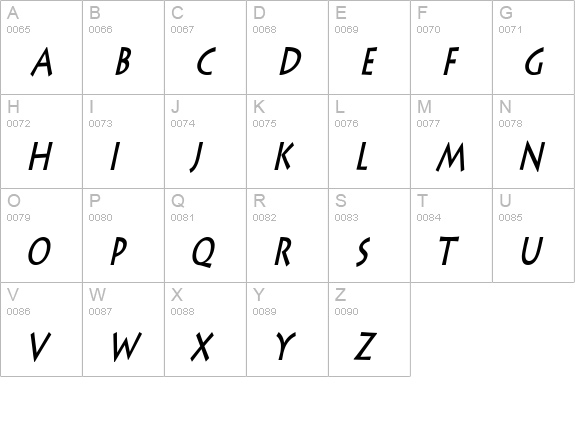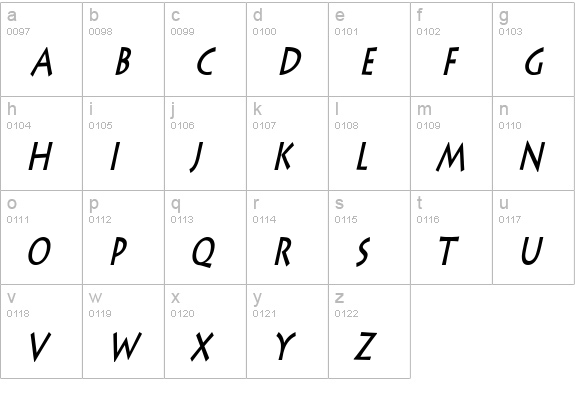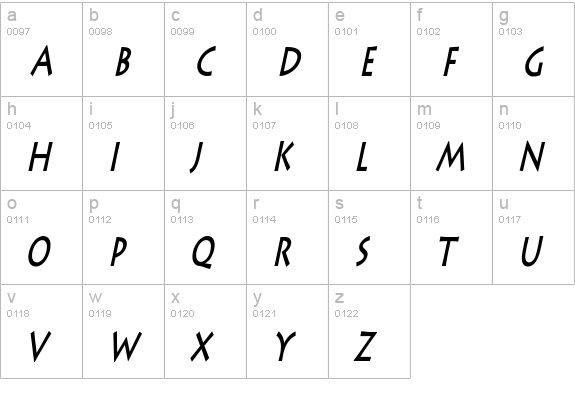
Liste Thin Bold Italic Font Details
Liste Thin Bold Italic is a delicate, low-contrast, italic variant in the Liste typeface family \xE2\x80\x94 well suited to fashion editorial, minimal branding, and high-contrast display.
Introducing Liste Thin Bold Italic font, a sleek and modern typeface that exudes sophistication and elegance. This font strikes the perfect balance between thinness and boldness, making it ideal for creating eye-catching designs that demand attention. The italicized style adds a touch of flair and personality to any project. Not only does Liste Thin Bold Italic font offer a unique and stylish look, but it is also versatile and highly readable, making it suitable for a wide range of design applications. Whether you're designing a logo, poster, website, or any other creative project, this font is sure to make a statement. Best of all, Liste Thin Bold Italic font is available for free download at FontsMarket.com. So go ahead and elevate your designs with this stunning typeface today!